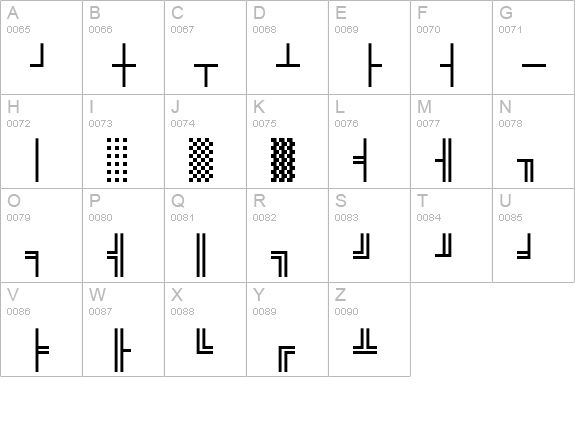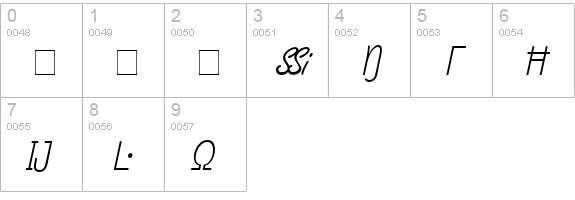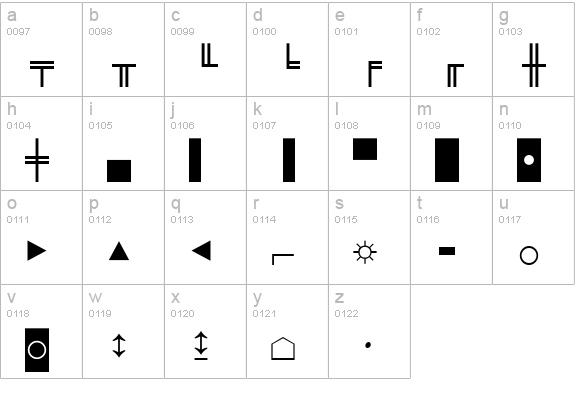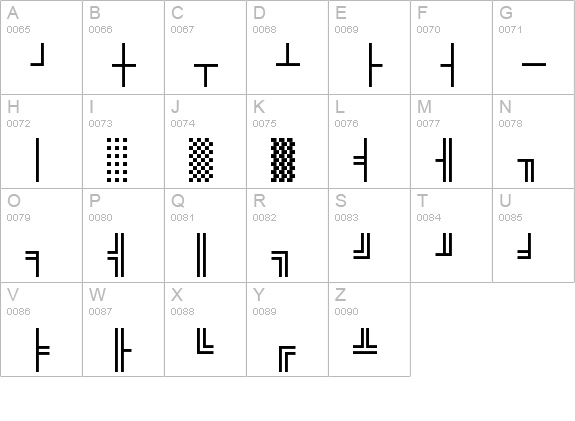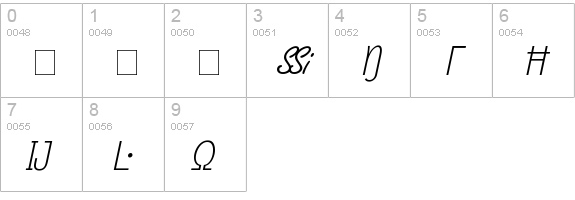
Micro Pi Four SSi Normal Font Details
Micro Pi Four SSi Normal is the standard, neutral variant in the Micro typeface family \xE2\x80\x94 well suited to general body text, paragraphs, and standard typographic work.
The Micro Pi Four SSi Normal font is a modern and stylish typeface that is perfect for adding a touch of sophistication to your designs. This versatile font features clean lines and a sleek appearance, making it ideal for a variety of projects. Whether you're working on a website, branding materials, or any other design project, this font is sure to make a statement. Best of all, the Micro Pi Four SSi Normal font is available for free download at FontsMarket.com. Simply visit the website to access this high-quality font and start using it in your projects today. Don't miss out on this opportunity to enhance your designs with a beautiful and professional font that is both stylish and free to use.